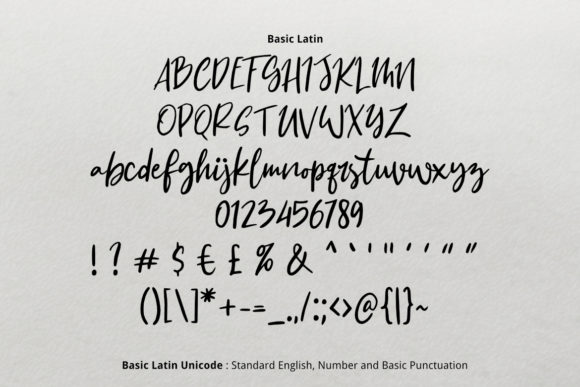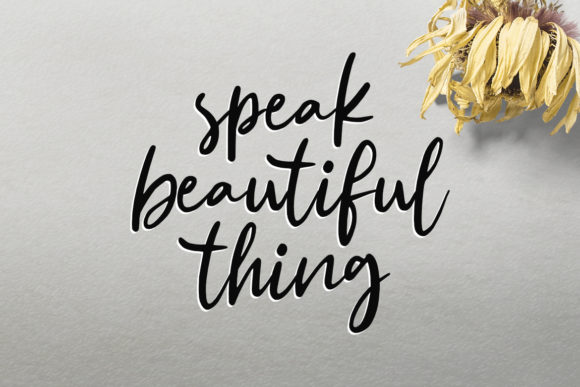
Unleash Your Creativity with the Allure of Kimono Font
Remember that moment when you stumbled upon a beautiful typography and immediately felt inspired to create something special? For designers, finding the perfect font can be a game-changer. Whether it’s for a social media post, a DIY project, or a branding element, the right font can elevate your work and make it truly unforgettable.
Enter the enchanting world of Kimono Font, a relaxed and whimsical handwritten font that’s perfect for adding a touch of elegance to your designs. This versatile font is ideal for Instagram posts, calligraphy scripts, and other creative projects where you want to convey a sense of warmth and personality. As a designer, you’ll appreciate the unique charm of Kimono Font, which can help you stand out from the crowd and leave a lasting impression on your audience.
Kimono Font Key Features
- Font Family: Kimono, Kimono Script, Kimono Sans
- Unique Characteristics: Hand-drawn design with elegant, flowing lines; perfect for creative, artistic, or cultural projects
- Language Support: Supports a wide range of languages, including Latin, Cyrillic, Greek, and many more
Kimono Font Review
Overall, I’m impressed with the Kimono Font. Here are some of its strengths: ✨
- Unique and stylish design: The font has a beautiful, hand-drawn feel that sets it apart from more generic fonts.
- High-quality vector graphics: The font is well-crafted, with smooth lines and crisp details that make it perfect for digital use.
- Extensive character set: The font includes a wide range of characters, including Latin, Cyrillic, and Greek scripts, as well as various punctuation marks and symbols.
- Perfect for creative projects: The font’s distinctive style makes it ideal for use in creative projects, such as fashion, art, and design.
- Limited legibility: While the font is beautiful, it can be difficult to read in smaller sizes or when used in text-heavy applications.
- No bold or italic weights: The font is only available in regular weight, which can make it less versatile than other fonts.
Overall, I think the Kimono Font is a great choice for designers who want to add a touch of elegance and sophistication to their projects. While it may not be suitable for all types of text, its unique design and high-quality graphics make it a great option for creative projects.
Tips for Getting the Most Out of Kimono Font
Here are some tips to help you get the most out of Kimono Font:
- Use Kimono Font to add a touch of elegance and sophistication to your designs.
- Pair Kimono Font with other elegant fonts to create a cohesive look.
- Experiment with different font sizes and colors to achieve the desired effect.
Here are some common use cases for Kimono Font:
Alternatives to Kimono FontCambria
Cambria is a classic serif font that is similar to Kimono Font in its elegant and sophisticated design. It is best used for formal documents, presentations, and publications where a professional and polished look is required. Cambria is more versatile than Kimono Font, as it comes in a range of font sizes and weights, making it ideal for a variety of applications.
Comparison: While Kimono Font has a more exotic and cultural feel, Cambria is a more timeless and universal choice. Cambria is also more readable in smaller font sizes, making it a better choice for body text.
Lato is a modern sans-serif font that offers a sleek and sophisticated look, similar to Kimono Font. It is best used for digital applications such as websites, apps, and social media, where a clean and minimalistic design is required. Lato is more versatile than Kimono Font, as it comes in a range of font sizes and weights, making it ideal for a variety of applications.
Comparison: While Kimono Font has a more traditional and cultural feel, Lato is a more modern and trendy choice. Lato is also more readable in digital formats, making it a better choice for digital applications.